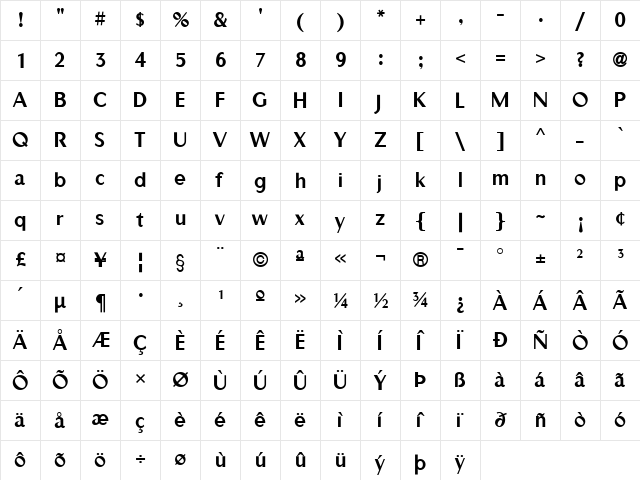
RubinoSansICG Regular
Design Context for RubinoSansICG Typeface
RubinoSansICG takes a measured approach to typography — its balanced proportions and neutral character make it a reliable workhorse for both digital and print work.